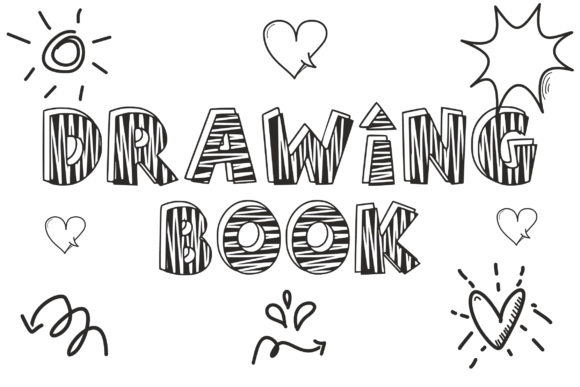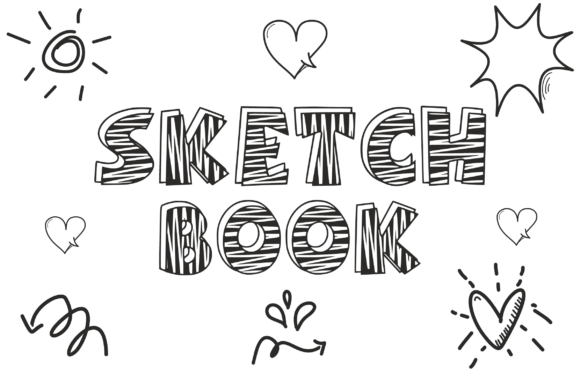
Discover the Whimsical World of Doodle Craft Font
Have you ever been in the middle of a design project, and suddenly, you just can’t seem to find the right font? I recall a particularly frustrating moment when a client asked for a playful, hand-drawn look for their children’s brand, and I was stuck. That’s when I stumbled upon the charming “Doodle Craft” font, and it completely transformed my design. In this article, we’ll dive into the delightful world of “Doodle Craft” and explore its features, uses, and versatility.
First Impressions: A Personal Review
As soon as I laid eyes on “Doodle Craft,” I was smitten. This modern doodle font has a cheerful aura that’s hard to resist. Here’s what I love about it:
- ✨ Easy readability: The font is clear and legible, making it perfect for a wide range of design applications.
- ✅ Whimsical charm: Each letter has a playful, hand-drawn feel that’s sure to capture your audience’s attention.
- 🌈 Versatility: From t-shirt graphics to animations, “Doodle Craft” can be used in various creative projects.
Of course, no font is perfect, and “Doodle Craft” has a few minor quirks:
- 🤔 Limited formal applications: Due to its playful nature, “Doodle Craft” might not be the best choice for formal or professional designs.
- ⚠️ Occasional kerning issues: As with any font, you might need to adjust kerning for optimal results.
- Experiment with OpenType features, such as glyphs and stylistic alternates, to add visual interest.
The Story Behind Doodle Craft
The creator of “Doodle Craft” was inspired by the joy of childhood crafts and the magic of doodling. They aimed to capture the carefree spirit of creating something with your own hands and translate it into a digital font. The result is a delightful, modern doodle font that’s sure to bring a smile to your audience’s faces.
| Font Name | Doodle Craft Font |
| Author | TaralArt |
| What is the best use for Doodle Craft font? | Doodle Craft is versatile and can be used for various design projects, including t-shirt graphics, mug prints, tote bag artwork, animations, comic titles, invitations, and greeting cards. |
| Is Doodle Craft suitable for formal designs? | No, due to its playful nature, Doodle Craft is better suited for informal and creative projects. |
| Does Doodle Craft support OpenType features? | Yes, Doodle Craft supports OpenType features, including glyphs and stylistic alternates, which can add visual interest to your designs. |